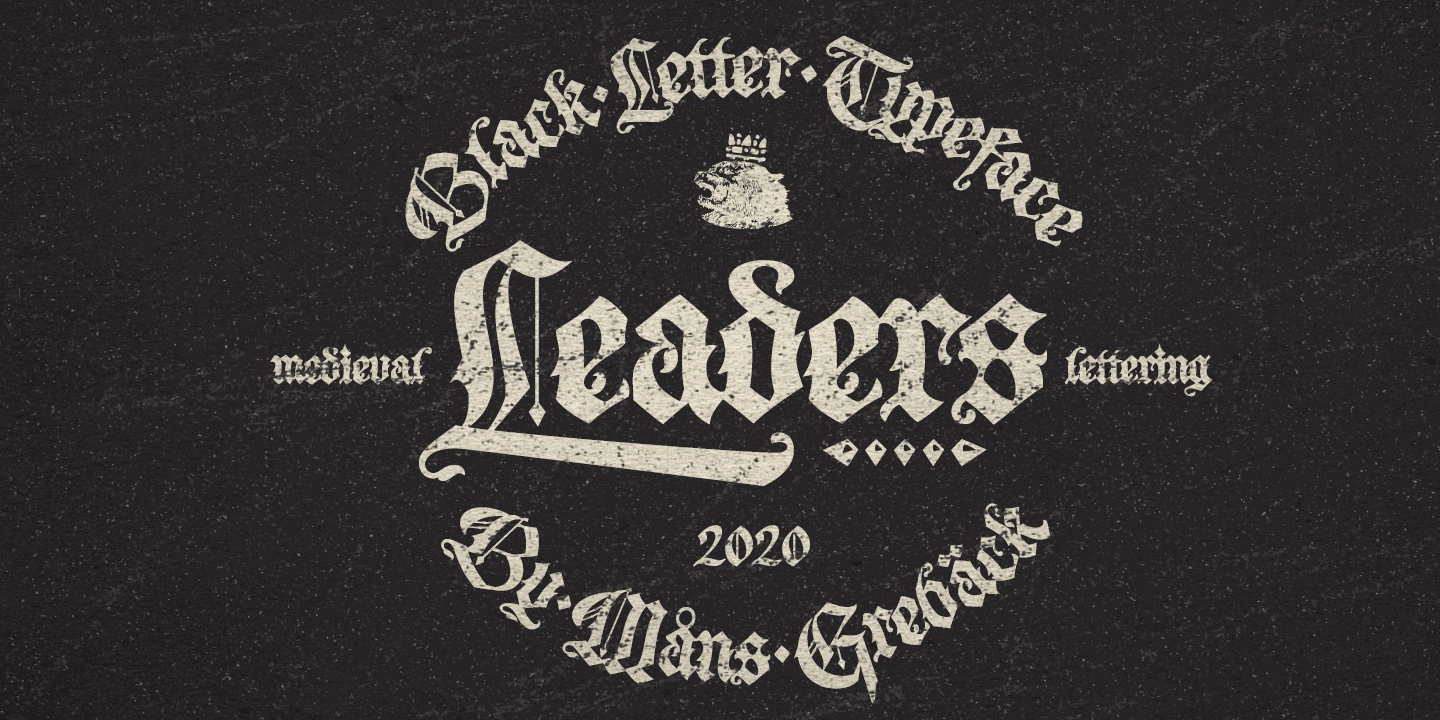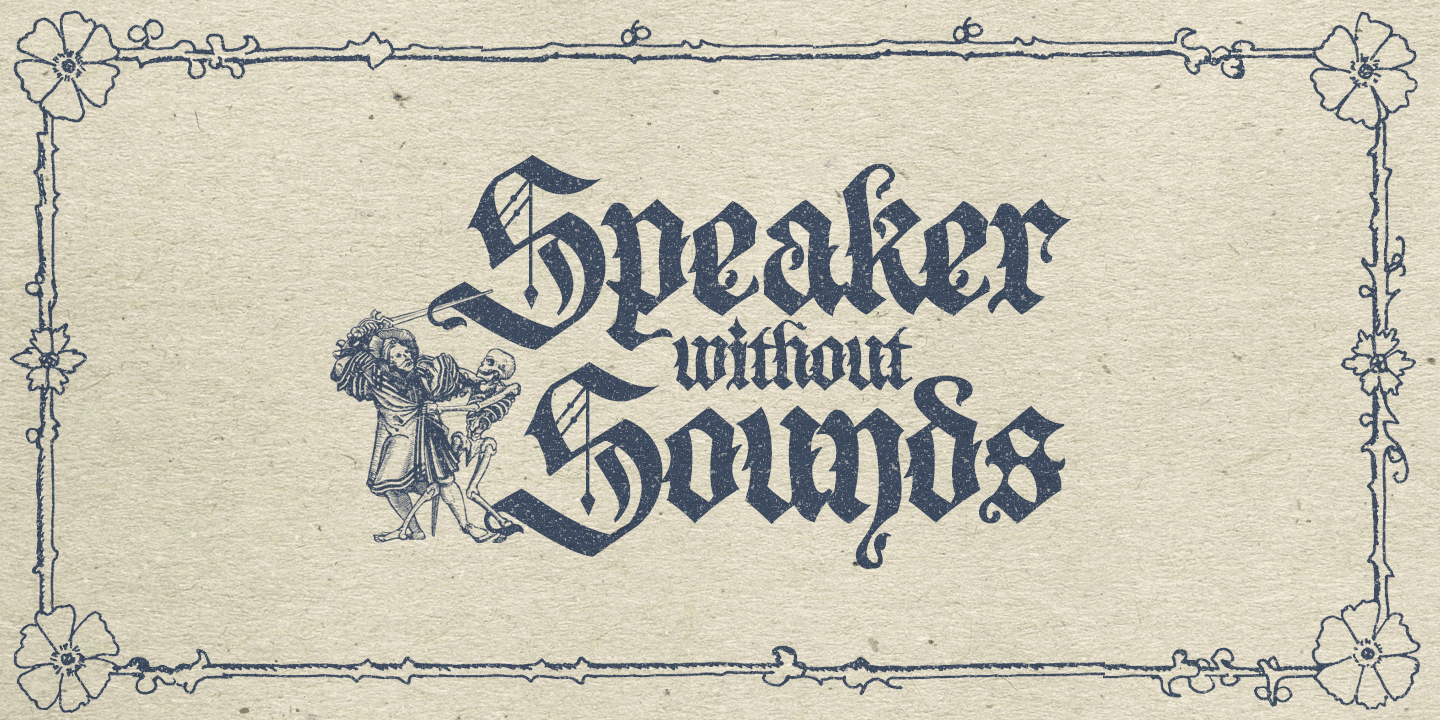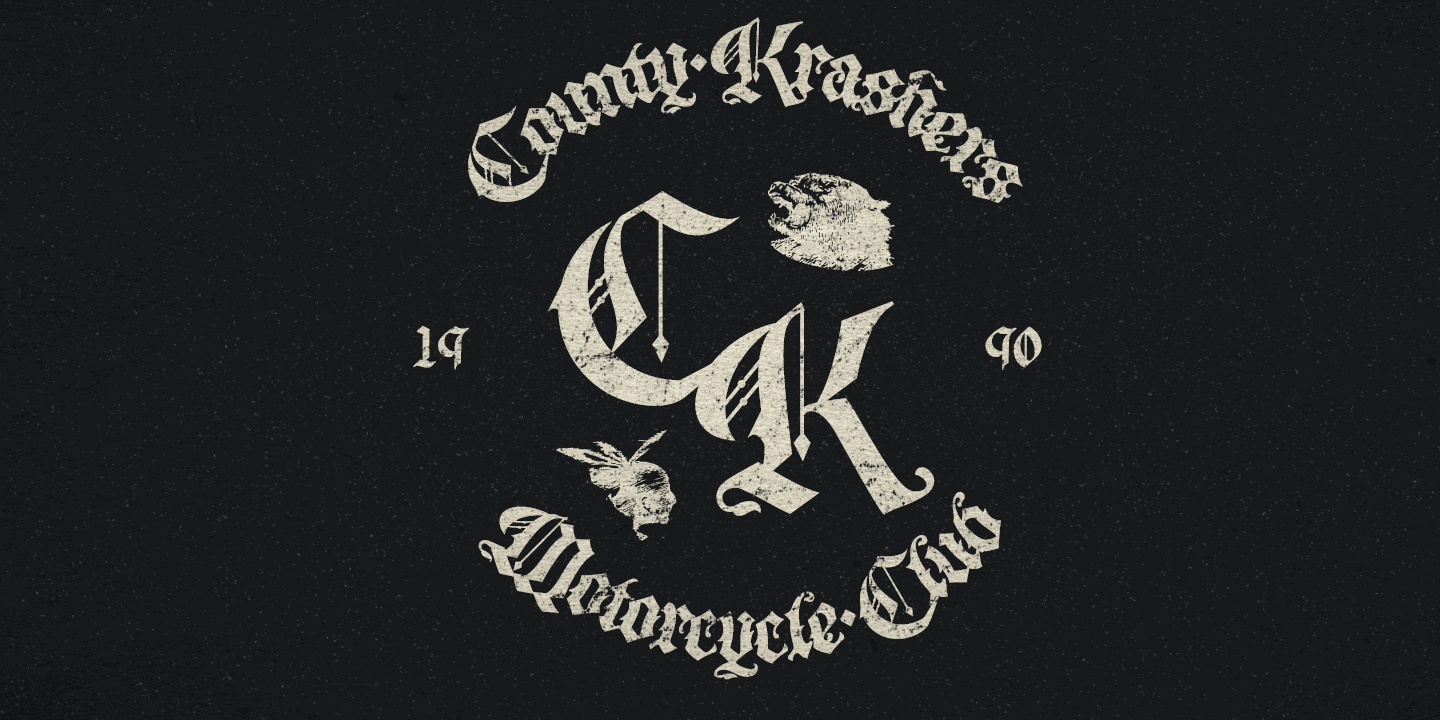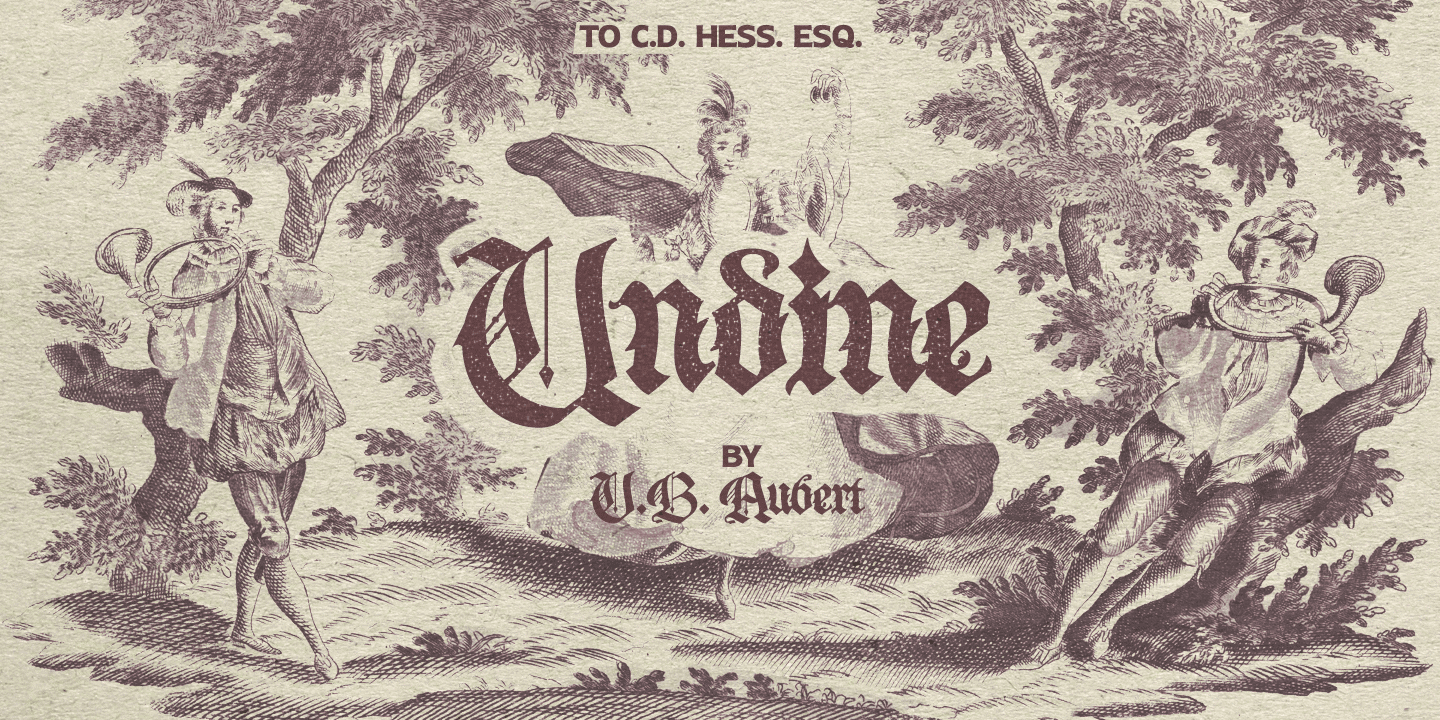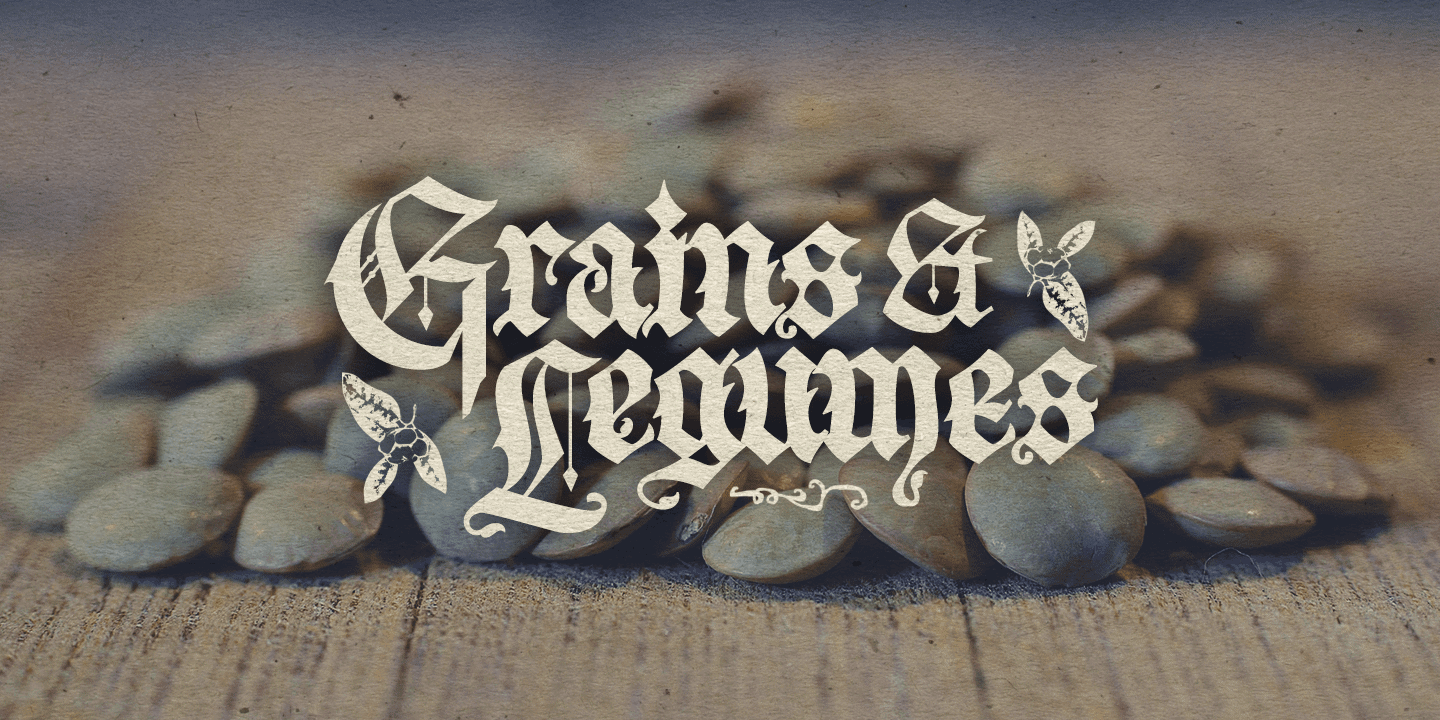
Leaders
Leaders is a decorative blackletter typeface. This medieval style lettering can be used for modern contexts that require a touch of flourishing, as well as any middle age art or festive occasion.
OpenType functions such as ligatures and alternates are present in the typeface. It contains numbers and all symbols and punctuation you’ll ever need. The font also has support for European, Latin-based languages.